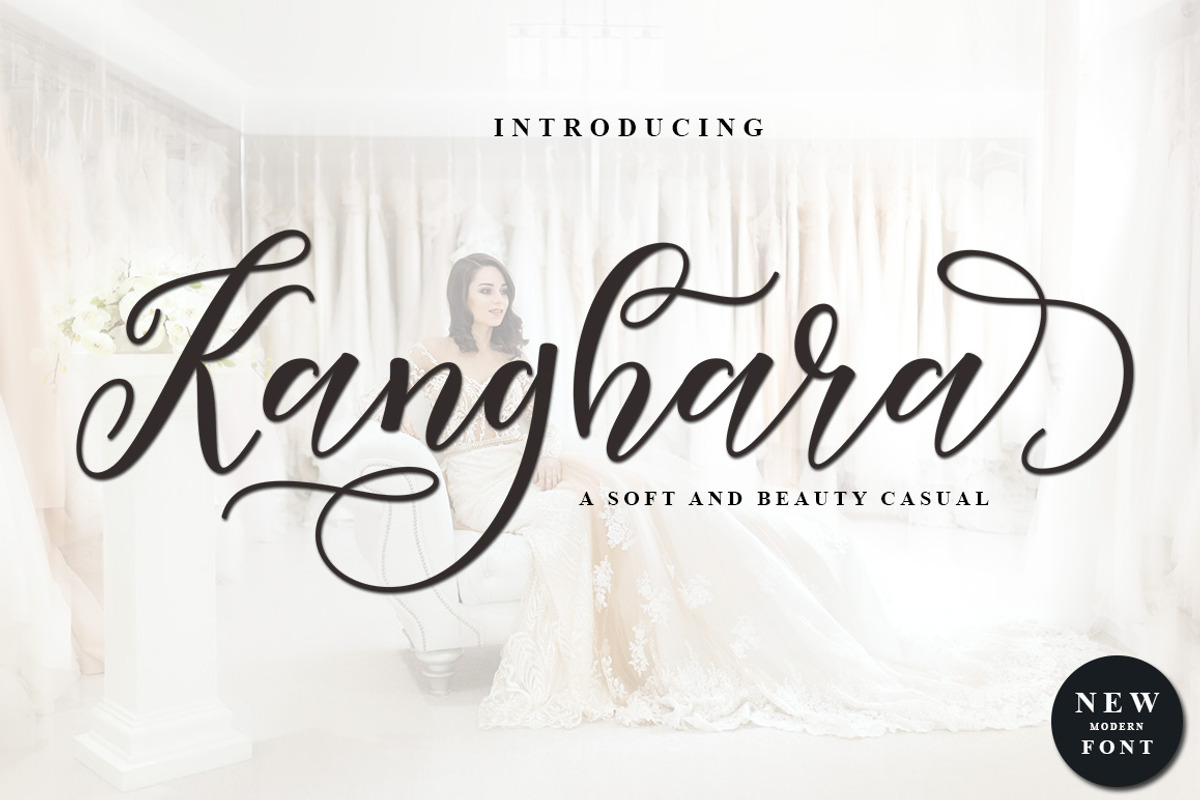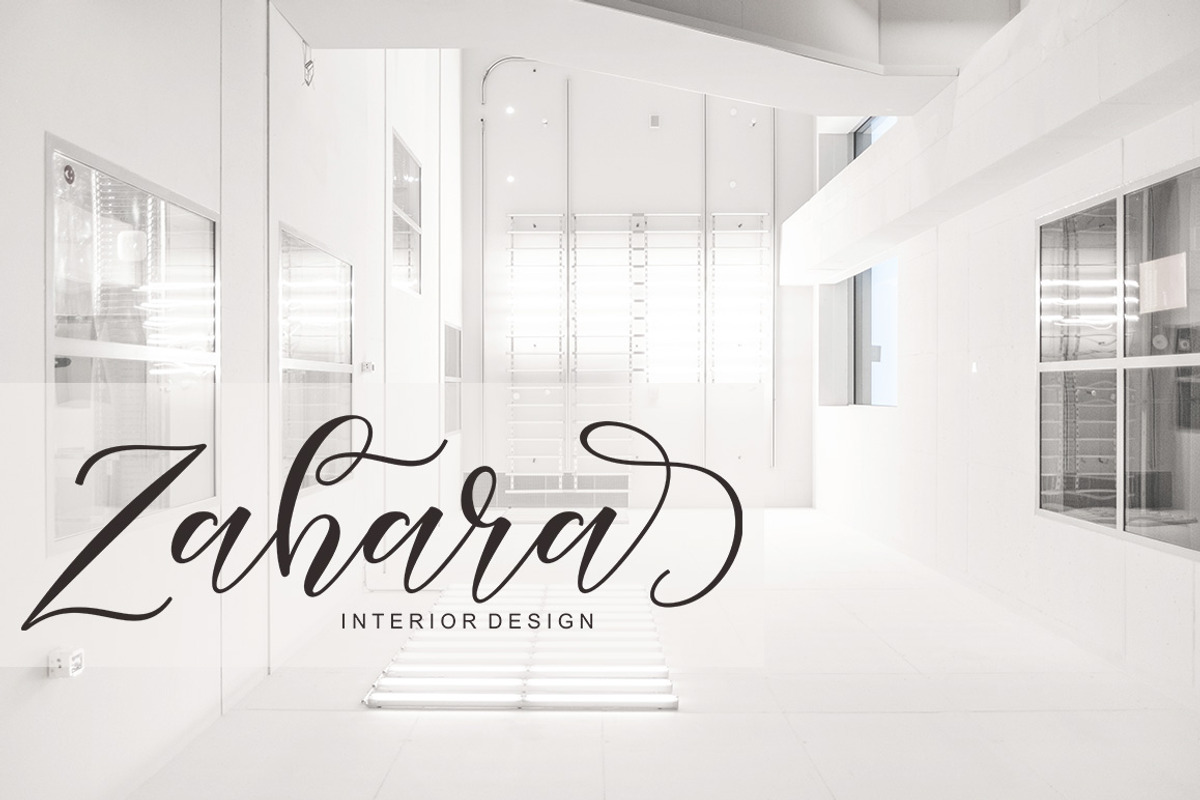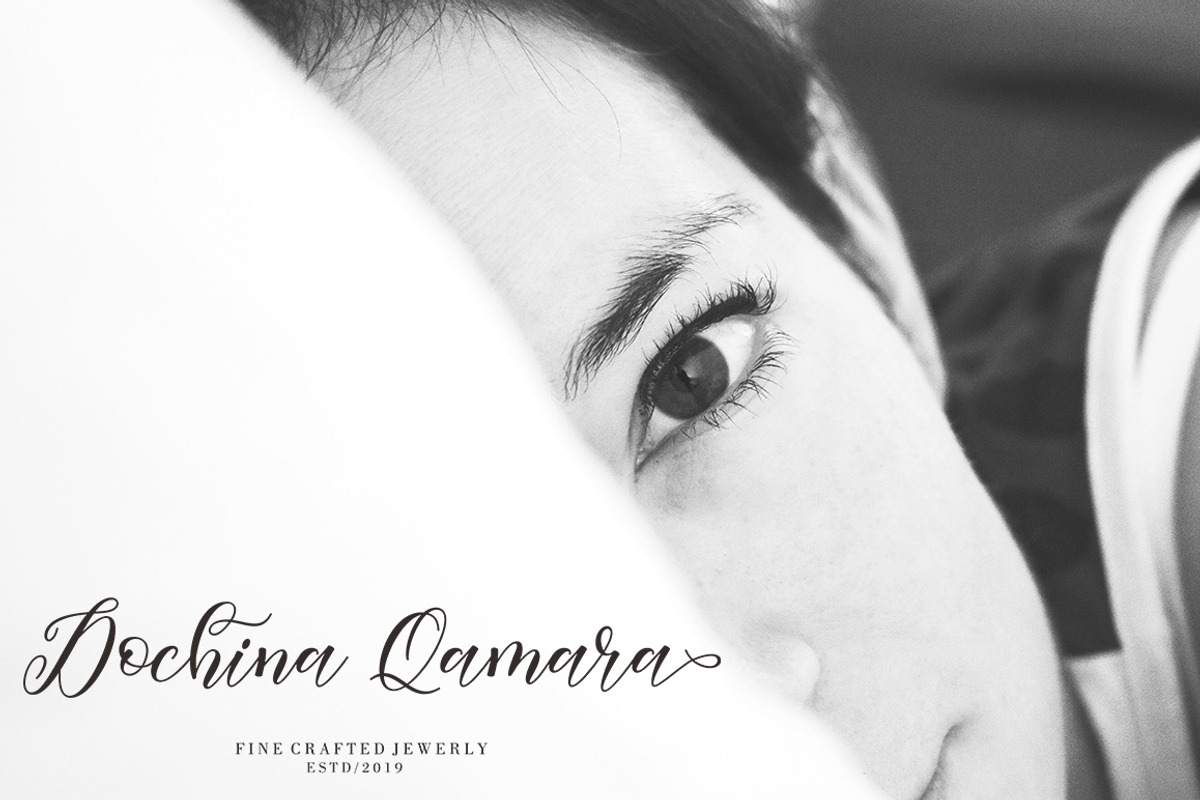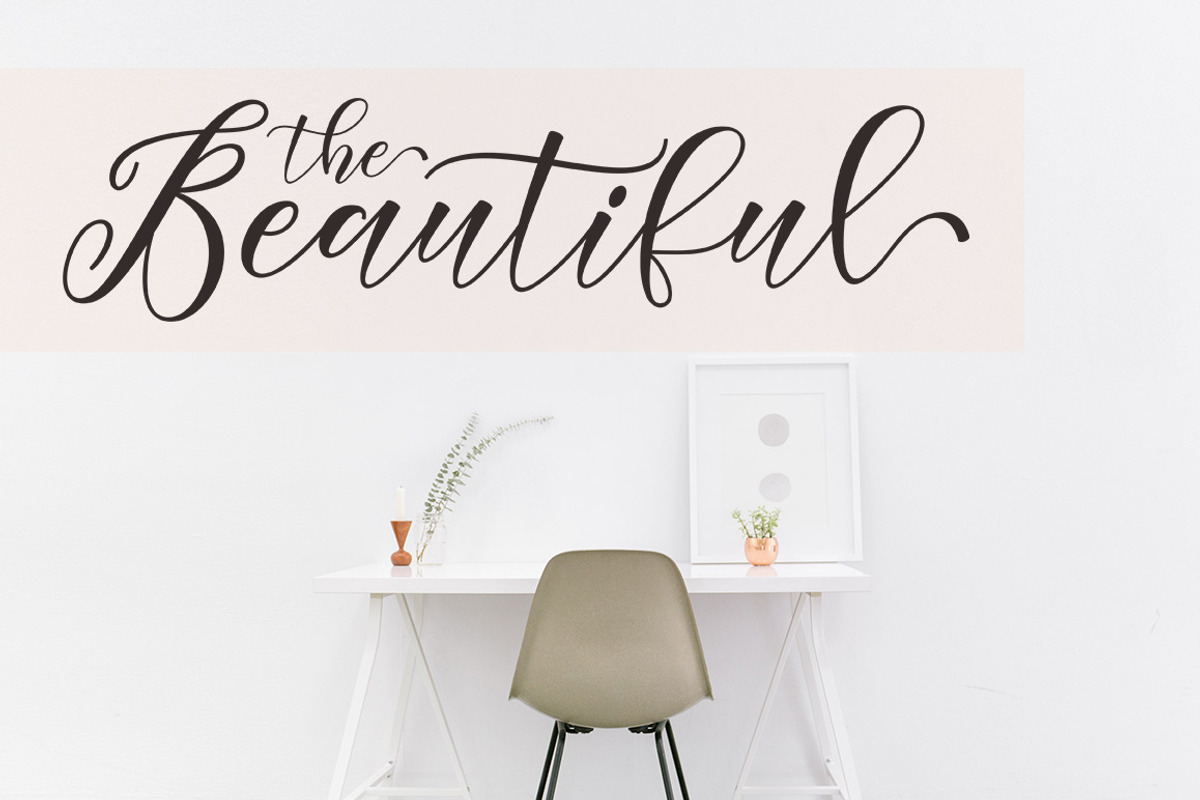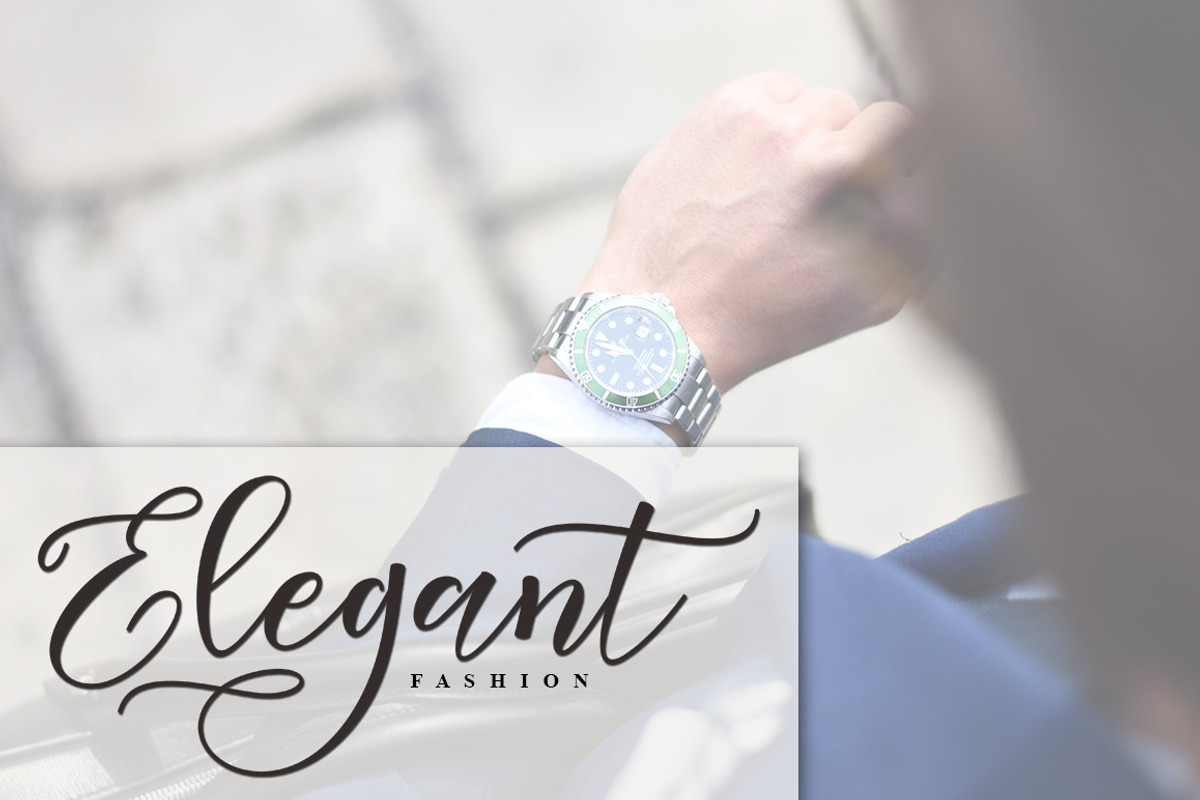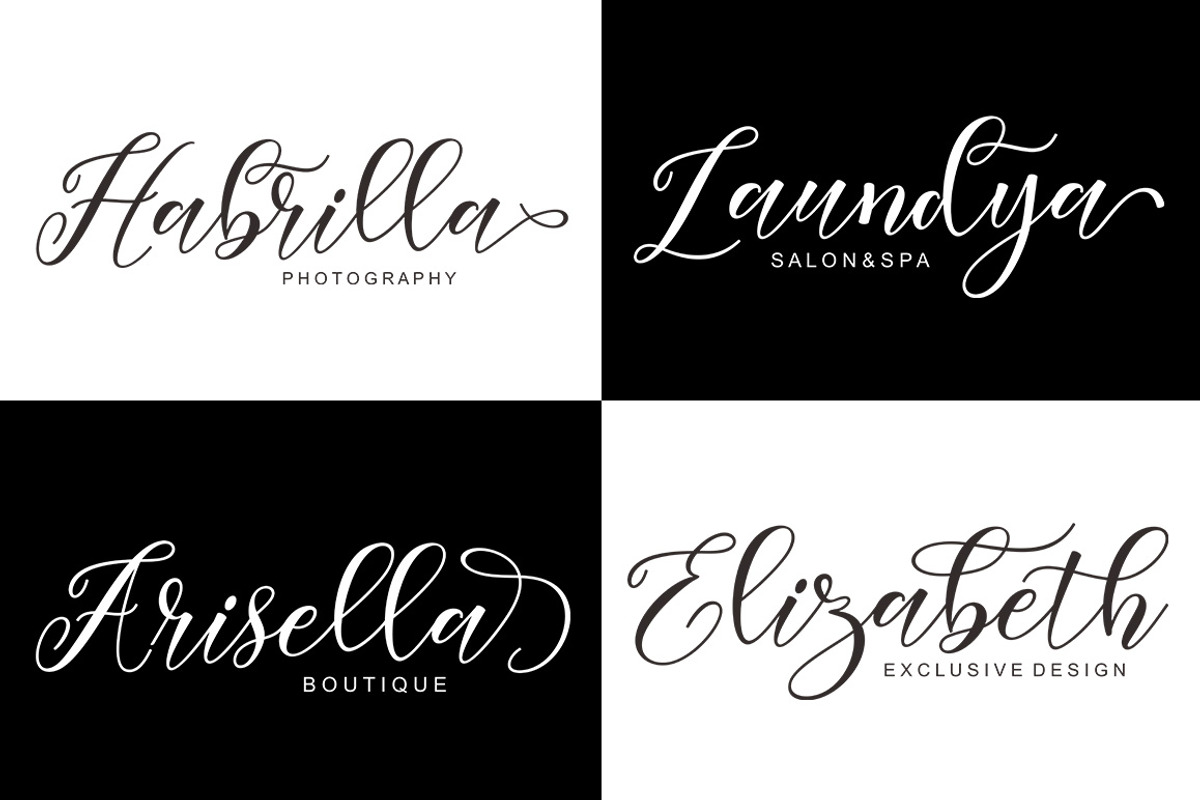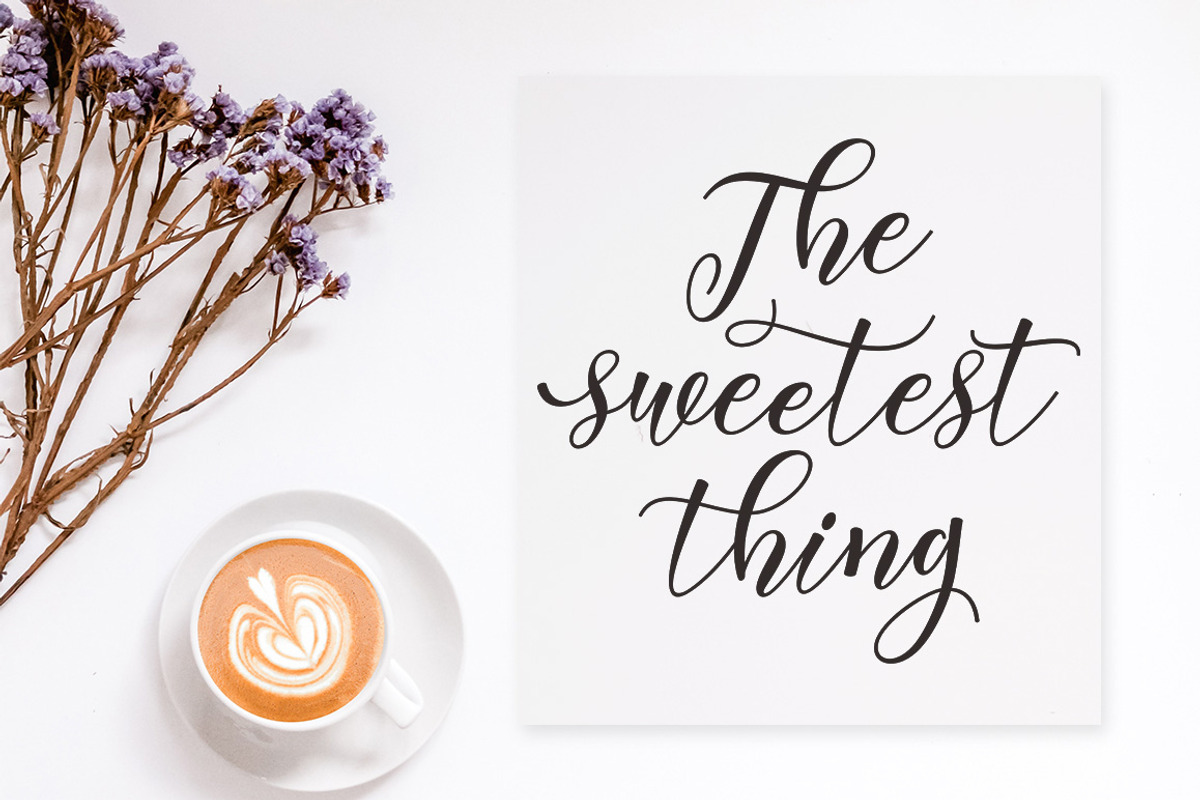
Kanghara
Kanghara is a calligraphic script font with varying baseline, which is designed to convey elegance and style. It is smoothline, clean and feminine. Works perfectly for logos, magazines, menus, books, invitations, wedding / greeting cards, packaging, labels, t-shirt etc. All designs you will have a wonderful homemade touch with Kanghara.
Kanghara features alternate characters. including initial and terminal letters, alternates, ligatures and multiple language support.